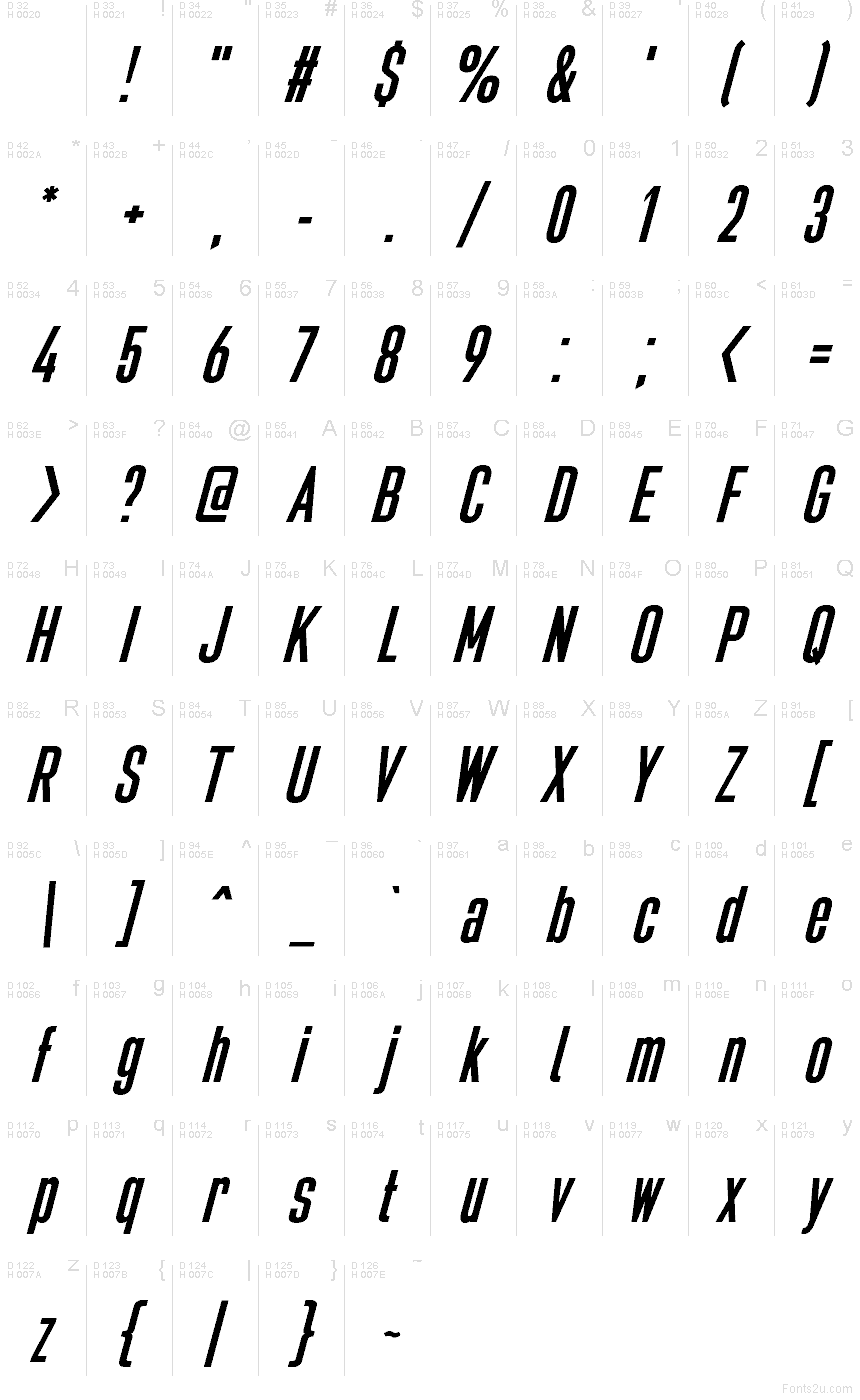
Bilgen Demo Black Right
Bilgen Black Right font by Bykineks is a free condensed sans serif typeface that hits hard even when space is tight. Heavy strokes, narrow widths, and a fast rightward slant create a punchy, forward-moving rhythm that feels sleek and confident rather than bulky. The black weight from the Bilgen family stacks letters into tall, inky columns, giving headlines a compressed power that reads clearly at a glance on screens or print.
Using Bilgen Black Right, you can squeeze strong messaging into slim layouts—think posters, sports branding, magazine covers, book spines, bold packaging, and social media banners. This free font shines when you need loud, energetic typography without sacrificing legibility. Pair it with a lighter, upright weight from the Bilgen family for body copy to keep your hierarchy sharp and your designs cohesive.